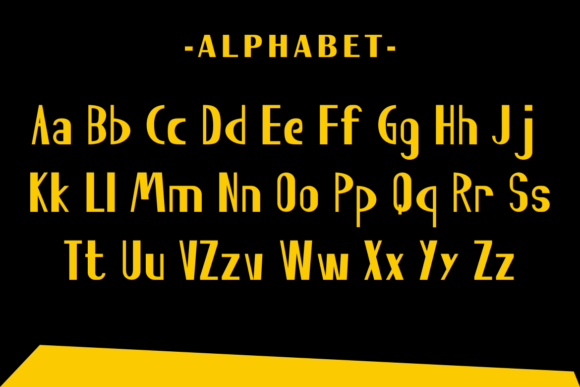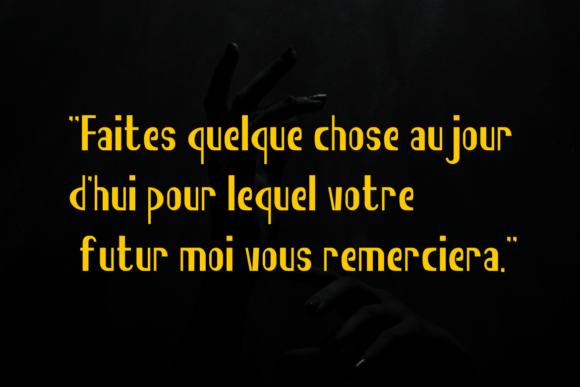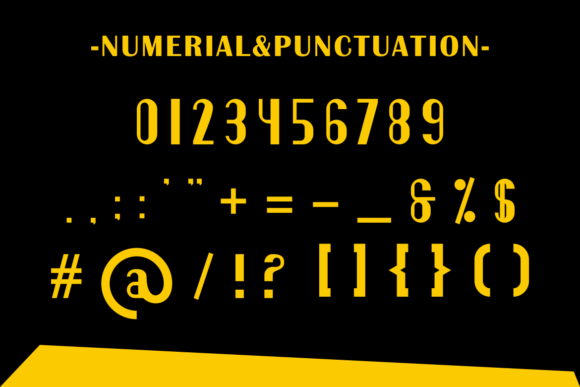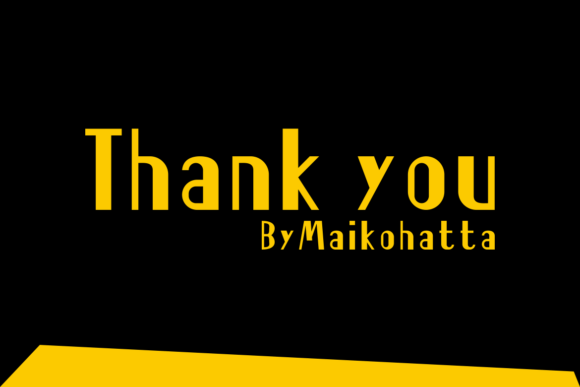
Introduction to Laurant Font
Enter the Laurant Font, a sweet and friendly display font that is sure to ignite your creative spark. With its exclusive and unique style, the possibilities are endless, and the only limit is your imagination!
Key Features of Laurant Font
- Includes a range of weights and styles, allowing designers to experiment with different typography options and create visually appealing layouts.
- Designed with a high resolution, ensuring crisp and clear display across various devices and screen sizes.
- Perfect for use in logos, branding materials, and other visual identity projects where a distinctive and stylish font is required.
Honest Review: Laurant Font
Laurant Font is a fantastic design resource that I’ve had the pleasure of working with on my latest creative project. As a designer, I’m always on the lookout for high-quality fonts that can elevate my work and make it stand out.
Here are some things that work well with Laurant Font: ✨
- High-quality design: The font is beautifully crafted and has a professional touch that’s perfect for any creative project.
- Transparent background: This allows for seamless integration with any design element, giving me the flexibility to create unique and captivating designs.
However, I did encounter a few limitations: ⚠️
- Limited font weights: While the font is well-designed, it would be great to have more font weights to choose from for added versatility.
- Not suitable for all projects: Due to its elegant design, it may not be the best choice for more playful or bold designs.
Overall, I’m very impressed with Laurant Font and would highly recommend it for any design project that requires a high-quality, elegant font.
Laurant Font is a high-quality design resource perfect for creative projects. This free download offers a unique, modern design style with a transparent background.
Laurant Font is perfect for:
– Branding and logo design
– Brochures and flyers
– Website design